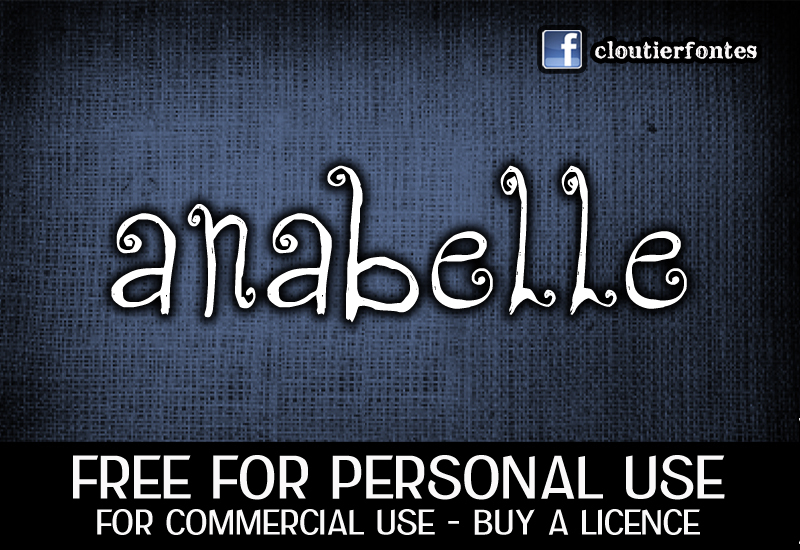
CF Anabelle by Cloutier Fontes is a free curly display font with a playful storybook manner. Its slender, uneven letters shift between broad sweeping loops and compact dark strokes, with long upright forms and curled tips recurring across the alphabet like small ink spirals.
Fairy-tale publishing is its clearest setting, especially for chapter titles, book covers, and illustrated maps. It also suits theatrical posters and whimsical confectionery packaging. The looping details echo vines and wandering paths, linking the lettering to storybook forests, traditional folklore, children's entertainment, and other gently eccentric fantasy subjects.
CF Anabelle Regular is a font by CloutierFontes, designed by Steve Cloutier in 2012.